Poiret One Font Pairings
Poiret One Font Pairings. I have recently found some that are my favorites. Rokkitt is a geometric slab serif font.
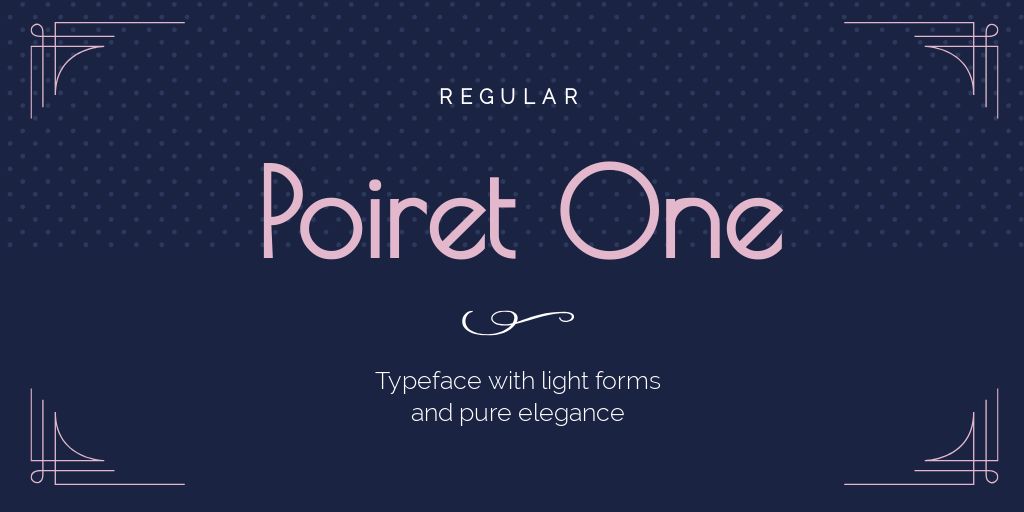
Rokkitt is a geometric slab serif font. It’s elegant in its simplicity. The fonts have different personalities but work together in harmony.
Garet Is A More Modern, Soft, And Smooth Masculine Tone Font That Makes Your Heart Melt.
It is a terrible choice for text / b. Poiret one is a unique. — fully reworked kerning, added manual pairs.
— I Just Found A Specimen Online.
Montserrat Black & Raleway Regular.
This Typeface Has A Fresh Geometric Grotesque And Decorative Typeface Appearance.
Based On Geometric Forms, It Has Stylish Lines And Graceful Curves.